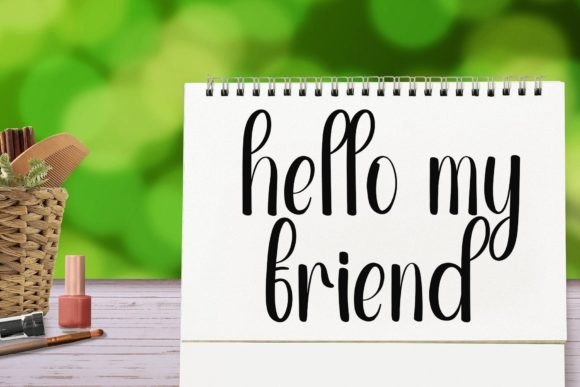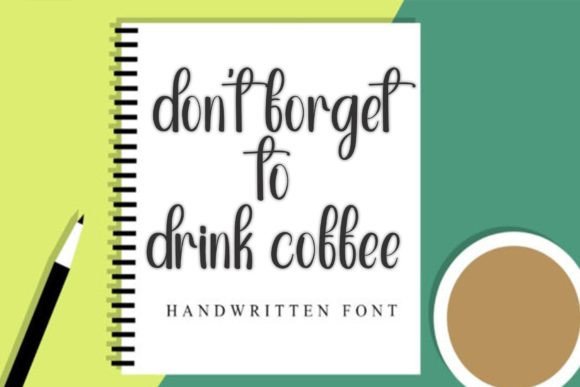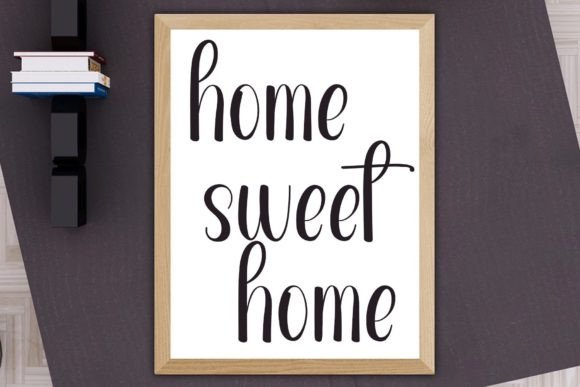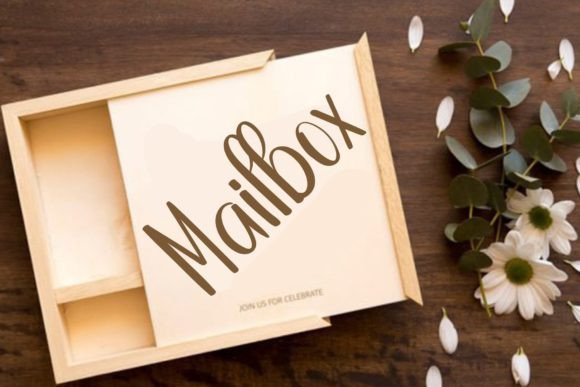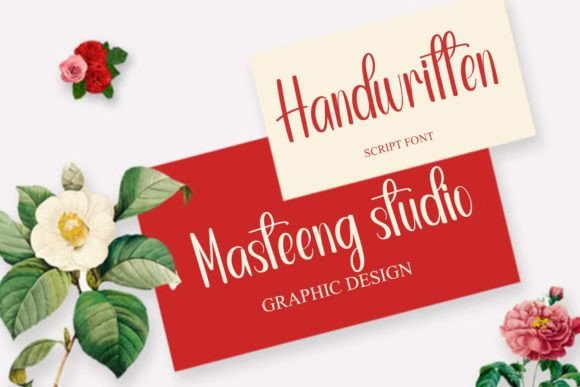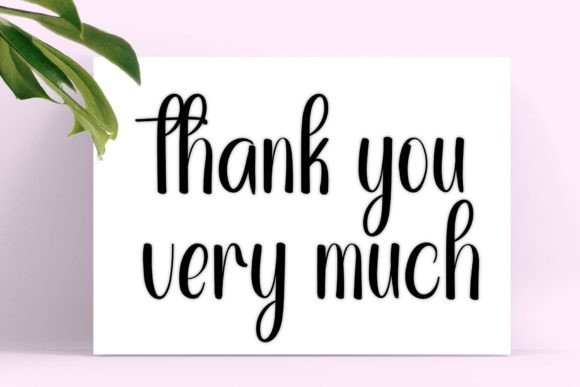
Mandala Handmade Font
About Mandala Handmade Font
“Mandala Handmade” is more than just a font; it’s a superb handwritten typeface crafted to make your work stand out with its elegant and curvy lines. Meticulously designed, this font is an excellent choice for a variety of applications, from product packaging and branding projects to magazine covers, social media graphics, weddings, or simply expressing words above a background with a touch of artistic flair.
The elegance of Mandala Handmade is evident in its gracefully designed curves and lines. The handwritten style adds a level of sophistication, making it an ideal choice for projects that require a creative and personalized touch.
For product packaging and branding, Mandala Handmade becomes a standout element in creating a unique visual identity. The font’s superb design enhances the overall appeal, ensuring that your products and brand convey a sense of creativity and individuality.
Magazine covers benefit from the stylish allure of Mandala Handmade. Its elegant lines and curves can transform covers into visually striking and modern designs, instantly capturing the attention of readers and infusing a sense of artistic flair.
In the realm of social media, where visual aesthetics are crucial, Mandala Handmade shines. Whether used for Instagram posts, Facebook covers, or other social media graphics, the font adds a touch of creativity that makes your online presence visually engaging and memorable.
Weddings, as celebrations of love and beauty, find an ideal companion in Mandala Handmade. The handwritten charm of the font enhances wedding invitations, signage, and other materials, bringing a romantic and artistic touch to the special day.
Using Mandala Handmade to express words above backgrounds allows for creative freedom. Whether it’s motivational quotes, artistic expressions, or other textual elements, the font becomes a versatile tool for conveying messages with elegance and style.
In conclusion, Mandala Handmade is a superb handwritten font that transcends its typographic function; it becomes a design asset that adds elegance and creativity to your work. Whether you’re working on product packaging, branding, social media, or weddings, let Mandala Handmade be the choice that brings a touch of sophistication and uniqueness to your creative projects.